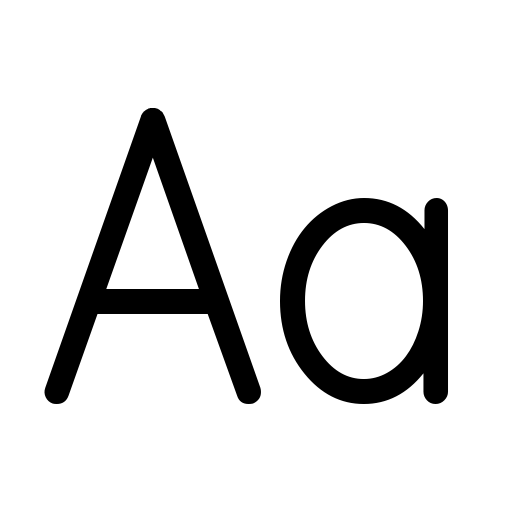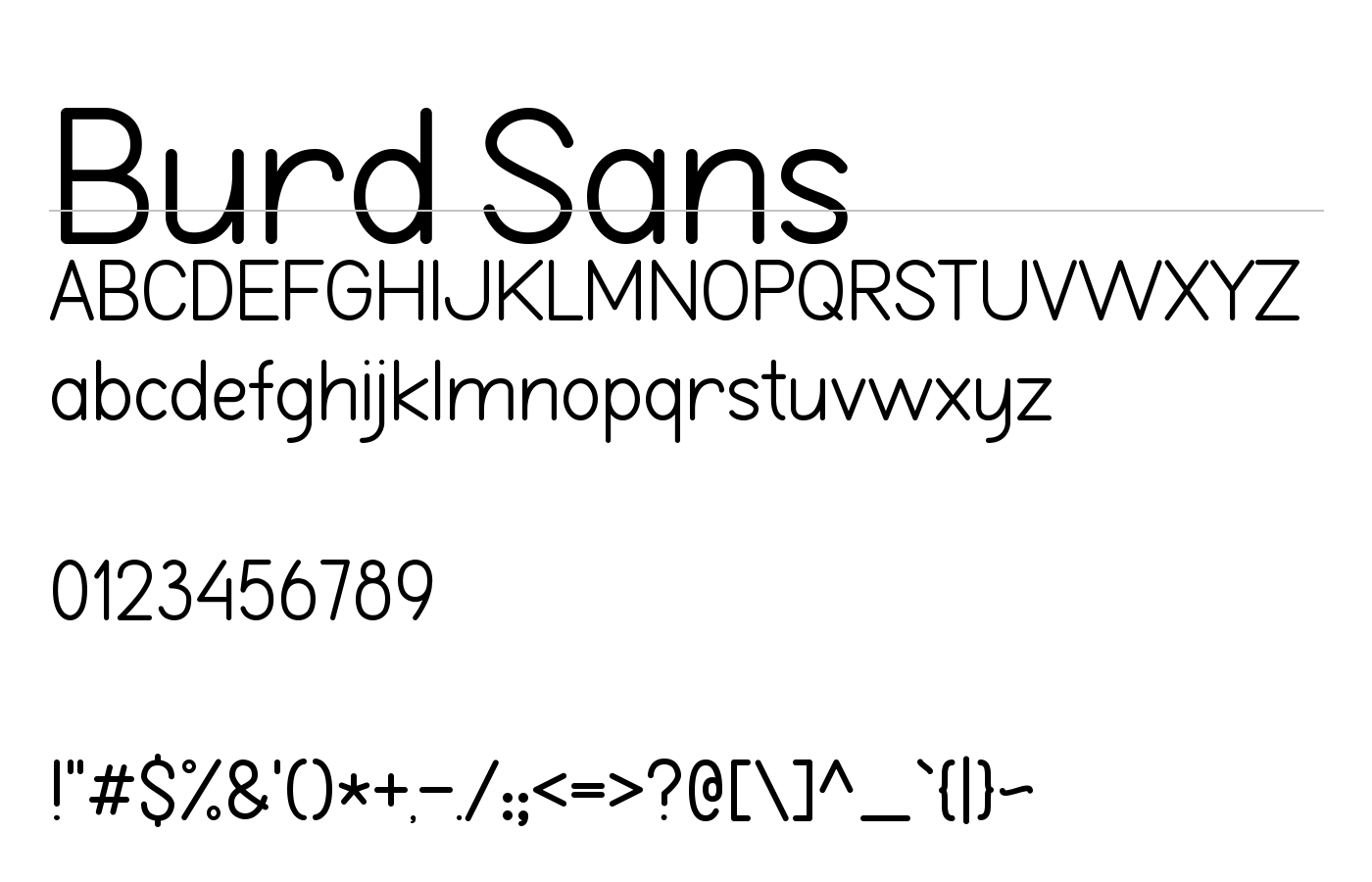
Burd Sans is a sleek, modern sans serif typeface characterized by its thin weight, tall x-height, and clean, geometric lines. Its rounded letterforms and uniform stroke widths give it a friendly yet professional feel, making it ideal for contemporary branding, editorial work, and digital interfaces where clarity and approachability are key. This font excels in headlines and display text, offering a refined, airy look that suits tech, fashion, and minimalist design projects.
Burd Sans Font
About Burd Sans Font